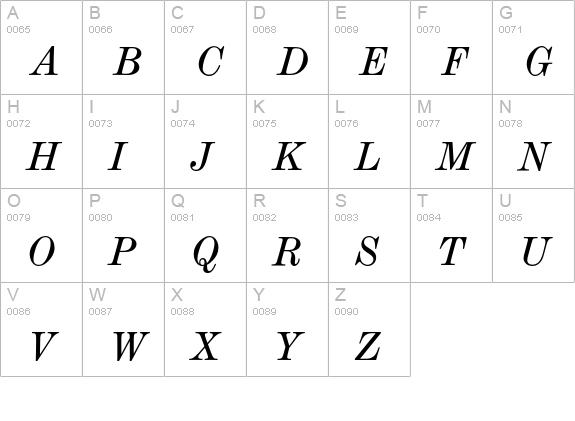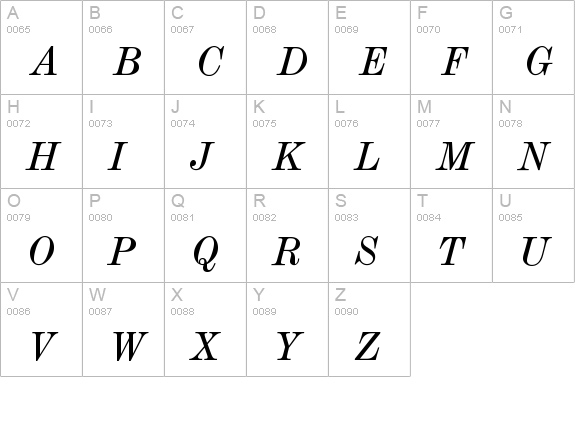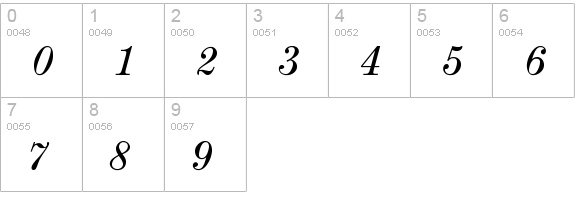
Modern BQ Extended Italic Font Details
Modern BQ Extended Italic is a distinctive, extended-width, italic variant in the Modern typeface family \xE2\x80\x94 well suited to design and typography projects.
The Modern BQ Extended Italic font is a sleek and contemporary typeface that exudes sophistication and elegance. With its elongated letterforms and stylish italics, this font is ideal for adding a touch of modern flair to any design project. Whether used for editorial layouts, branding materials, or digital content, the Modern BQ Extended Italic font conveys a sense of refinement and creativity. Best of all, this exquisite font is available for free download at FontsMarket.com. Embrace the versatility and beauty of the Modern BQ Extended Italic font in your next creative endeavor and elevate your designs with its unique charm and style.